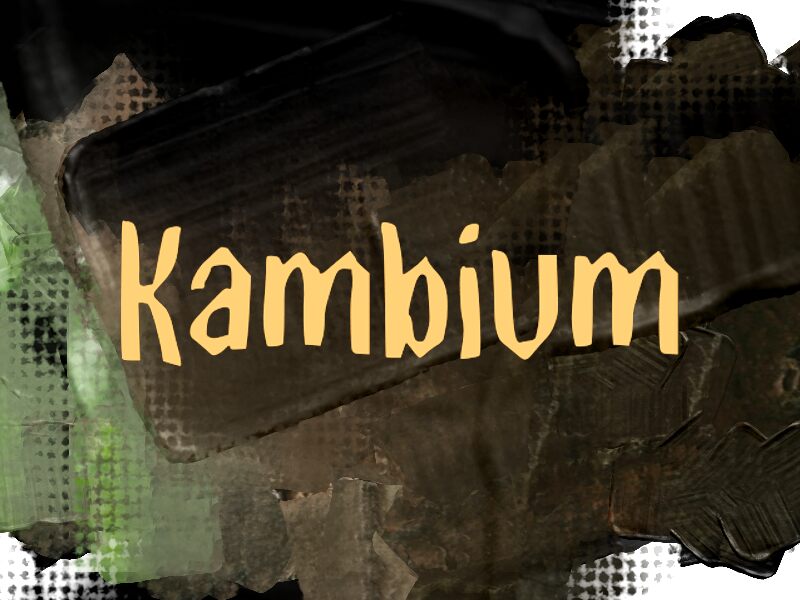
K Kambium font is a free, fancy, and slightly textured typeface created by wepfont.com. The design inspiration of this font is natural elements, which is apparent in its organic and rustic feel with added thin rough cuts across the letters. It is informal, friendly, and inviting which is an effect that rubs off to a user’s design and message. Along with other basic characters, K Kambium is equipped with special swashes that add a creative touch.
Where can you use this resource? It’s quite versatile and works well in both small and large point sizes. Use it in book covers, posters, signs, social media posts, inspirational quotes, logos, and packaging.
Kambium is a stylish and versatile free font that seamlessly blends modern aesthetics with classic design elements. This font is perfect for various applications, including branding, packaging, and web design.
With its clean lines and unique character, Kambium provides excellent readability, making it suitable for both digital and print media. Whether you are creating stunning graphics or designing elegant typography, this font will enhance your projects and captivate your audience.